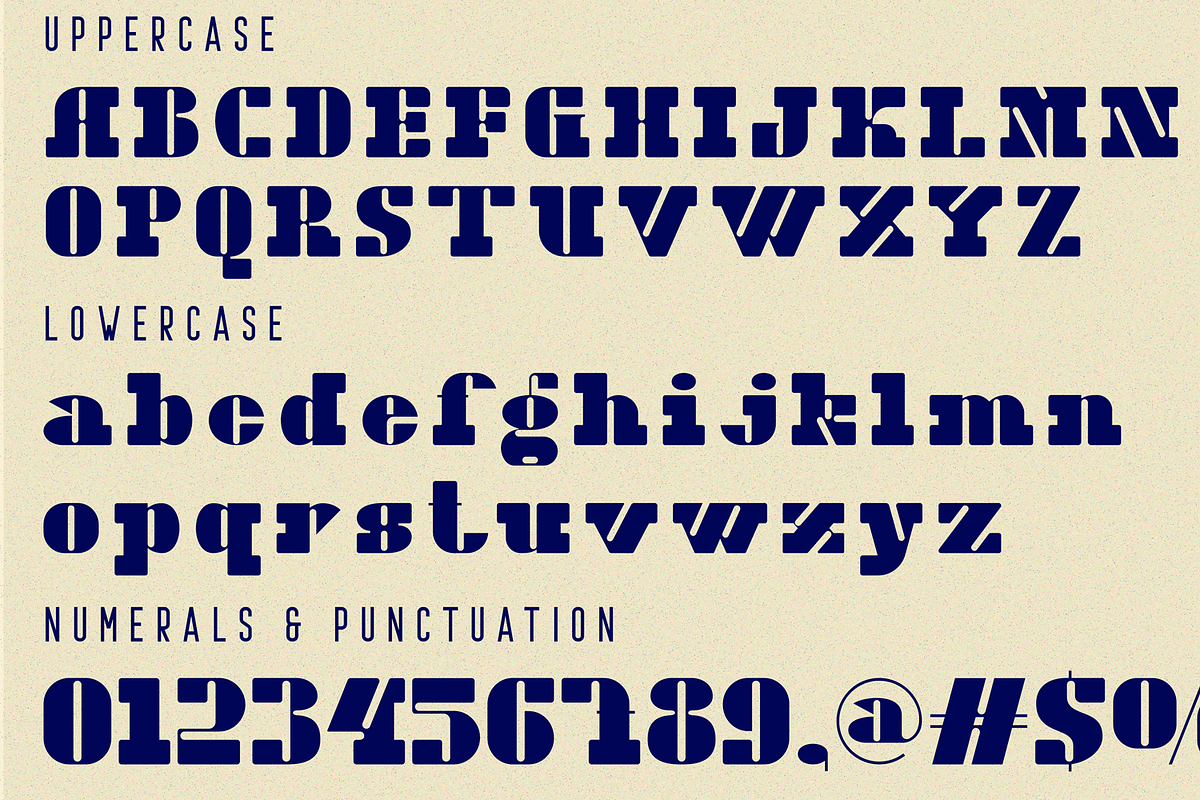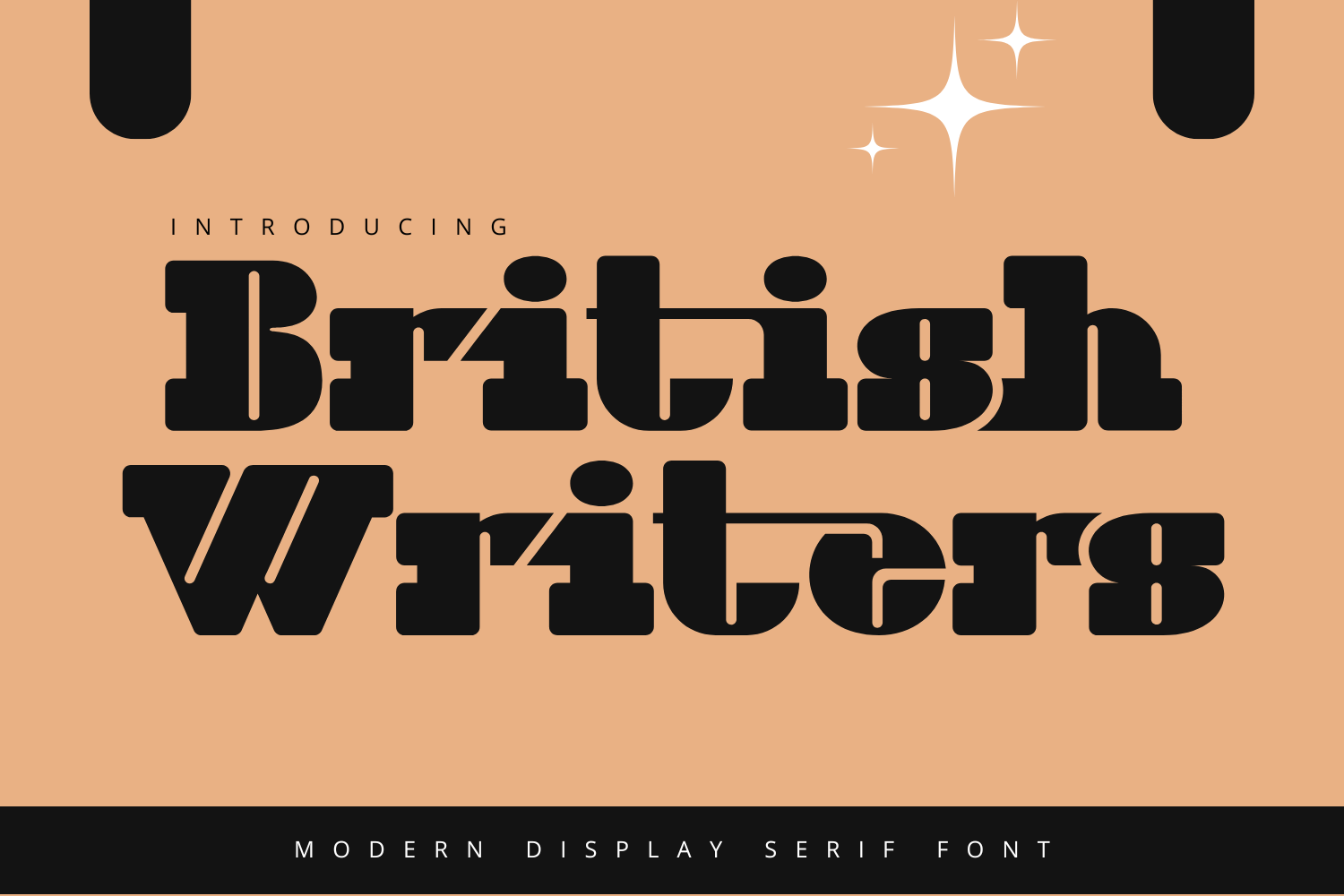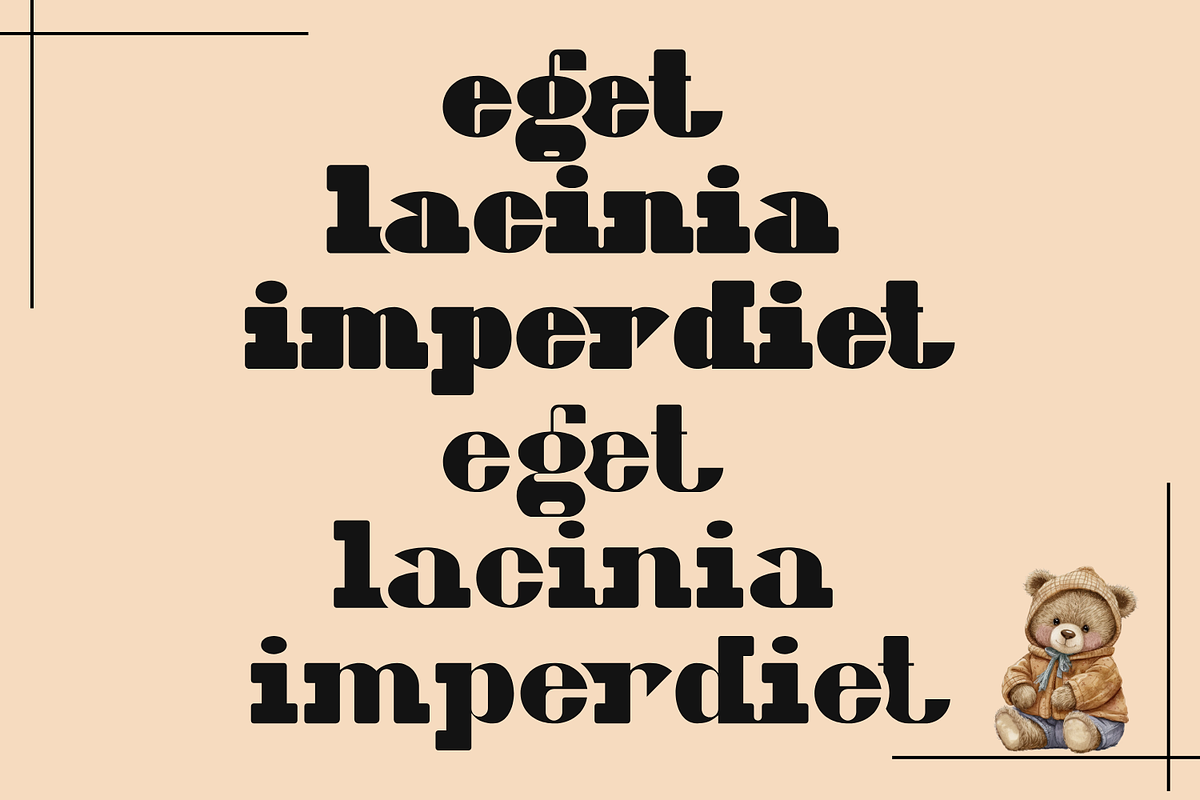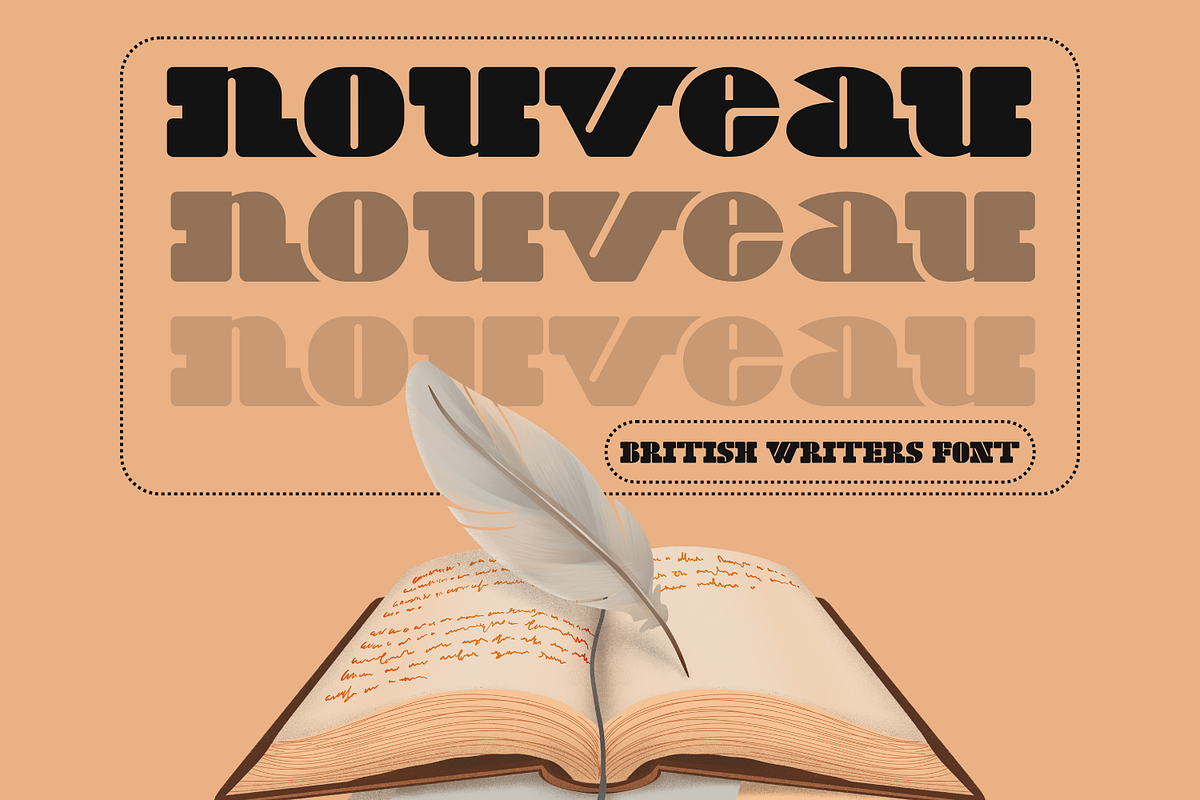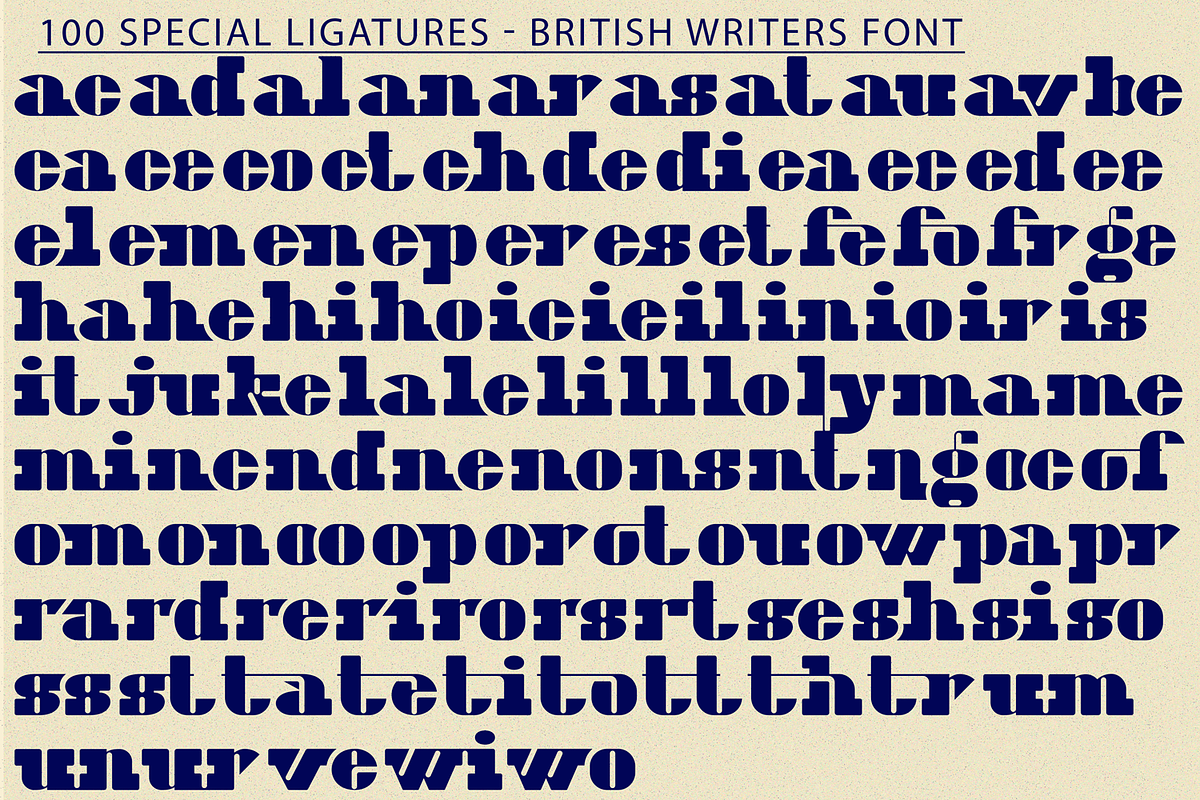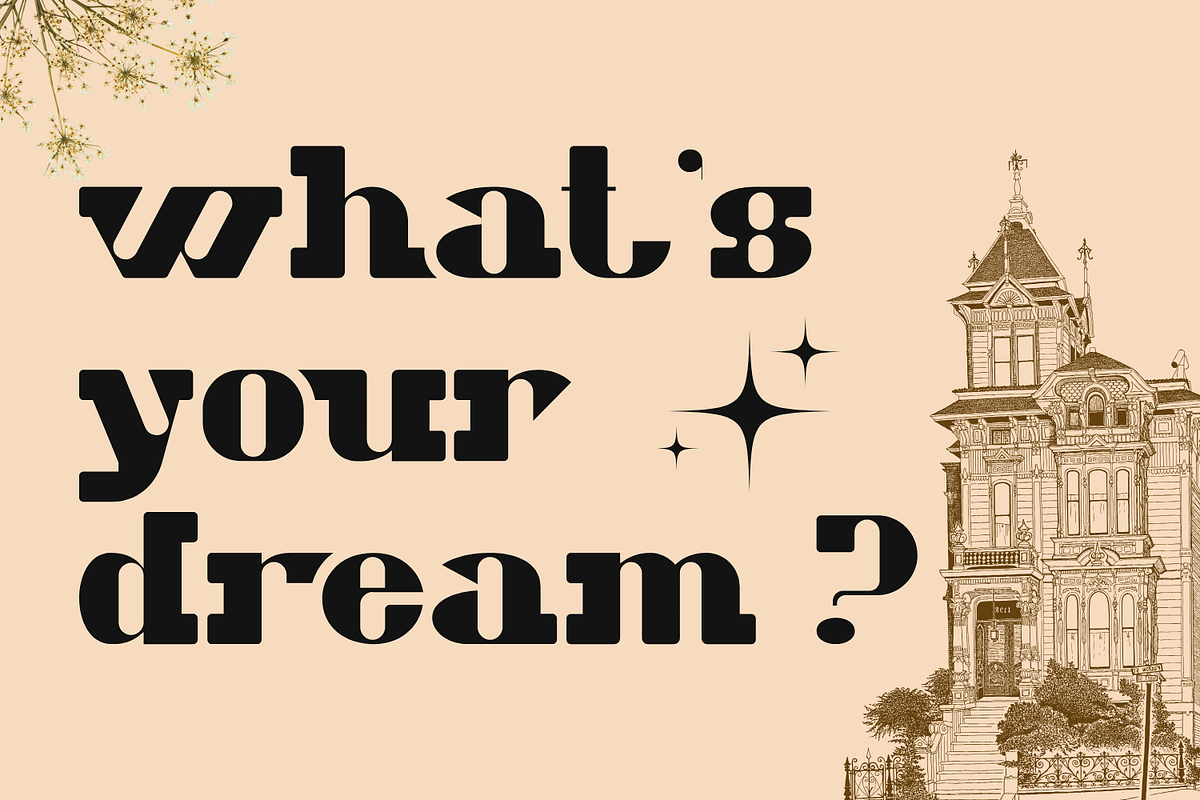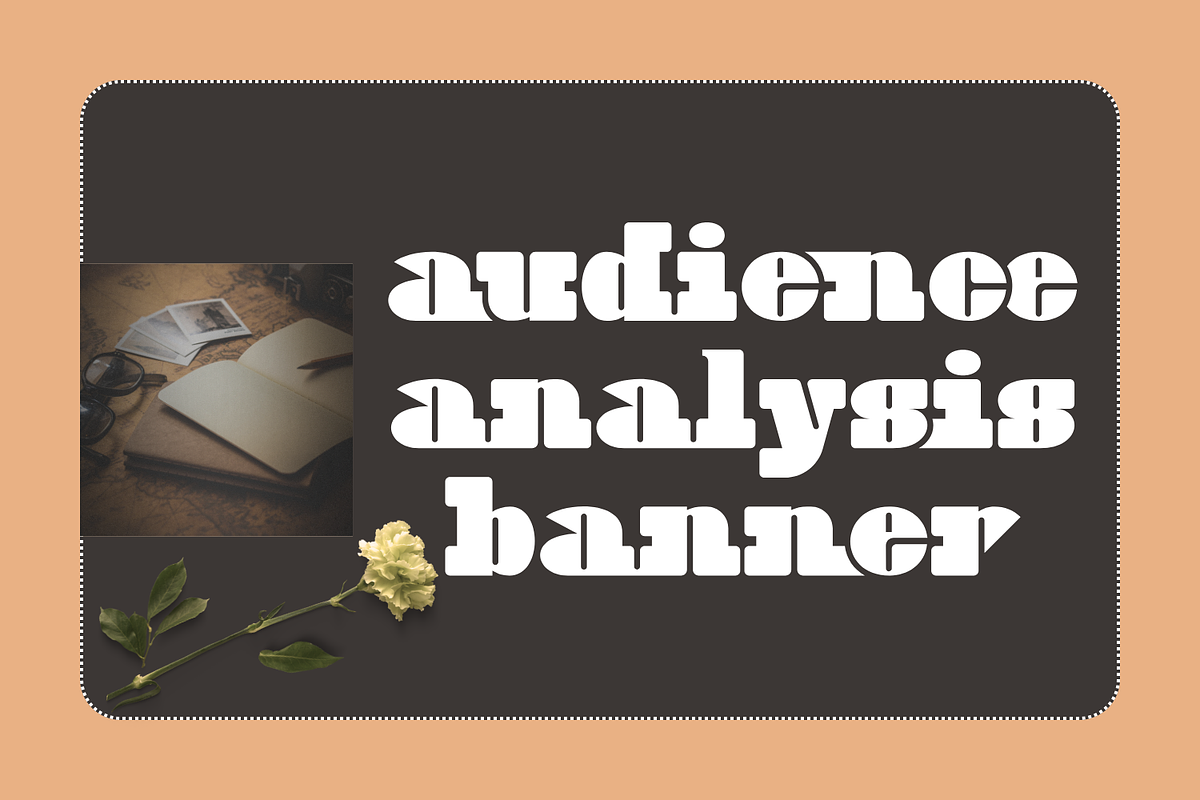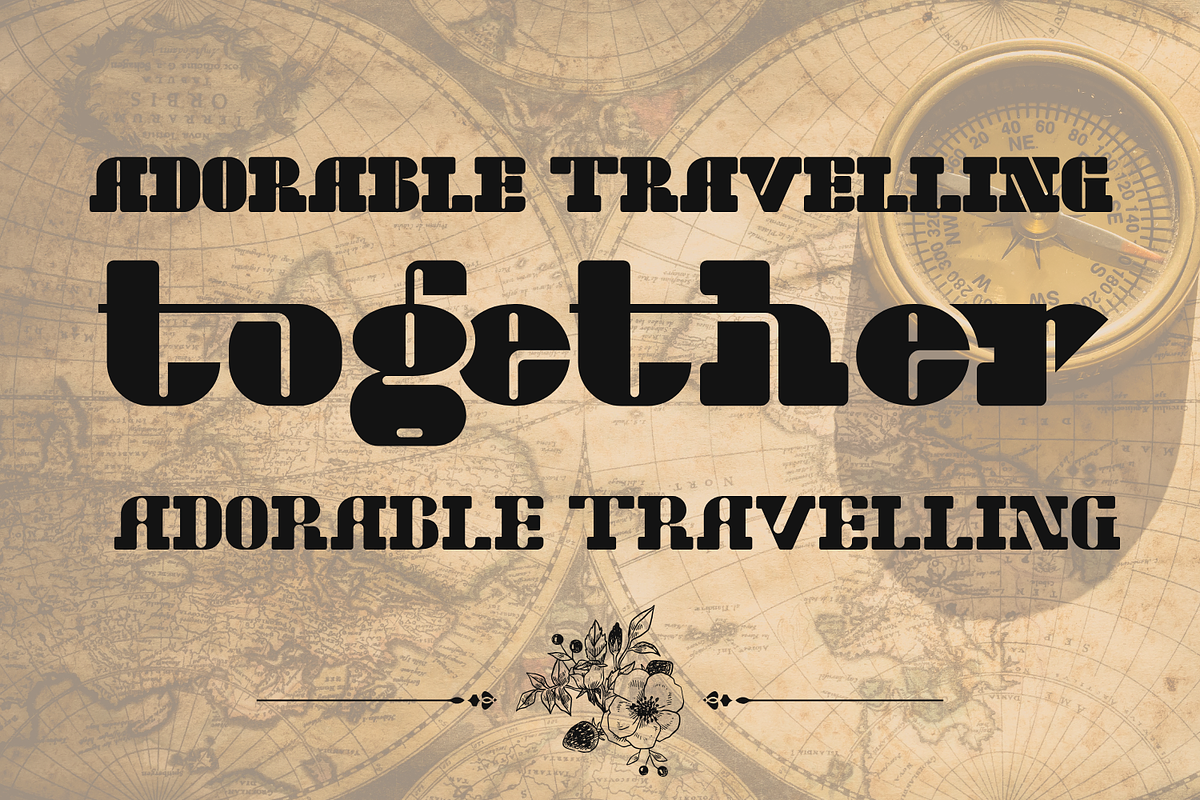
British Writers Font
British Writers Font is a retro Slab Serif font. With its distinct Slab Serif characters, it's brings a strong, masculine, and captivating vibe. Combining retro design elements with a modern twist, this font creates a delightful and unique harmony. Its well-balanced letter thickness and exceptional clarity ensure that your message is read loud and clear across all media. A font that is very suitable for crafts, labels, quotes, SVG files, decorations, labels, logotypes, book covers, t-shirts, web, posters, stickers, wall art, or other ideas.
British Writers was built with OpenType features and includes 100 ligatures, alternate, numbers, punctuation, and it also supports other languages.
ac ad al an ar as at au av be ca ce ch co ct de di ea ec ed ee el em en ep er es et fe fo fr ge ha he hi ho ie ic il in io ir is it ju ke la le li ll lo ly ma me mi nc nd ne ng no nt ns oc of om on oo op or ot ou ow pa pr ra rd re ri ro rs rt se sh si so ss st ta te th ti to tr tt um un ur ve wi wo